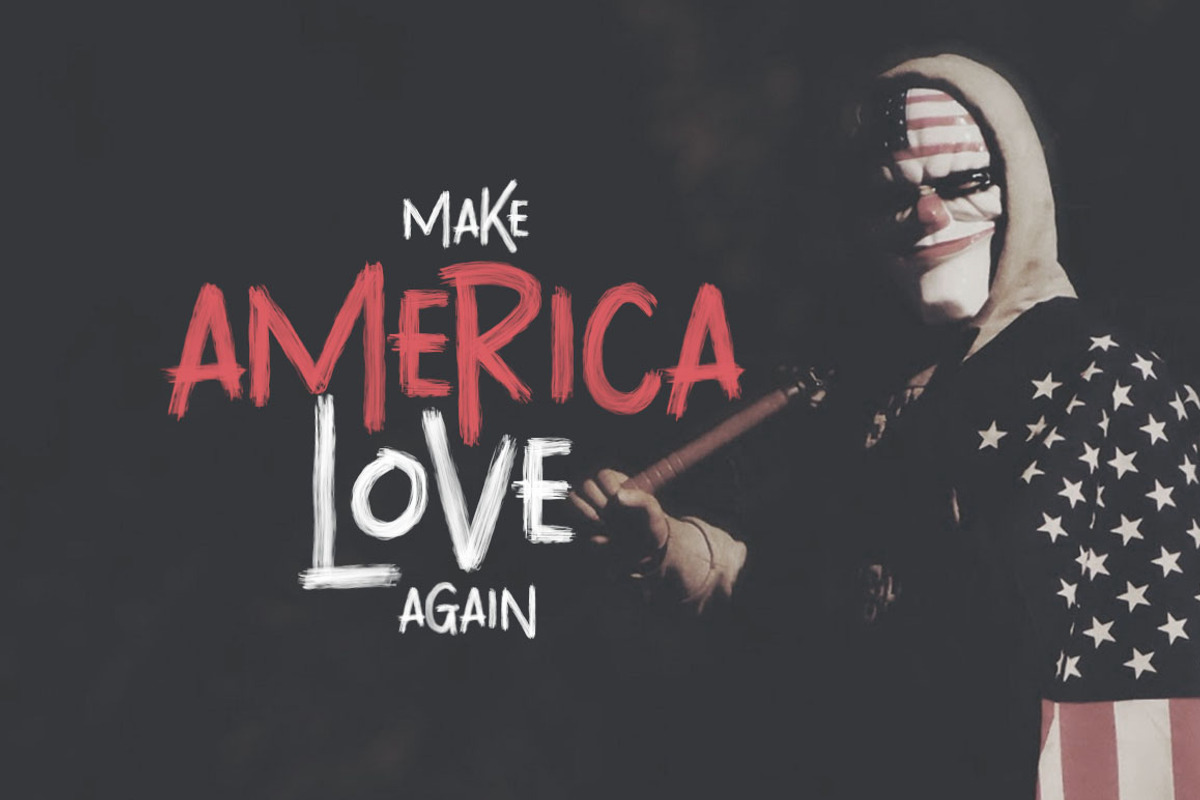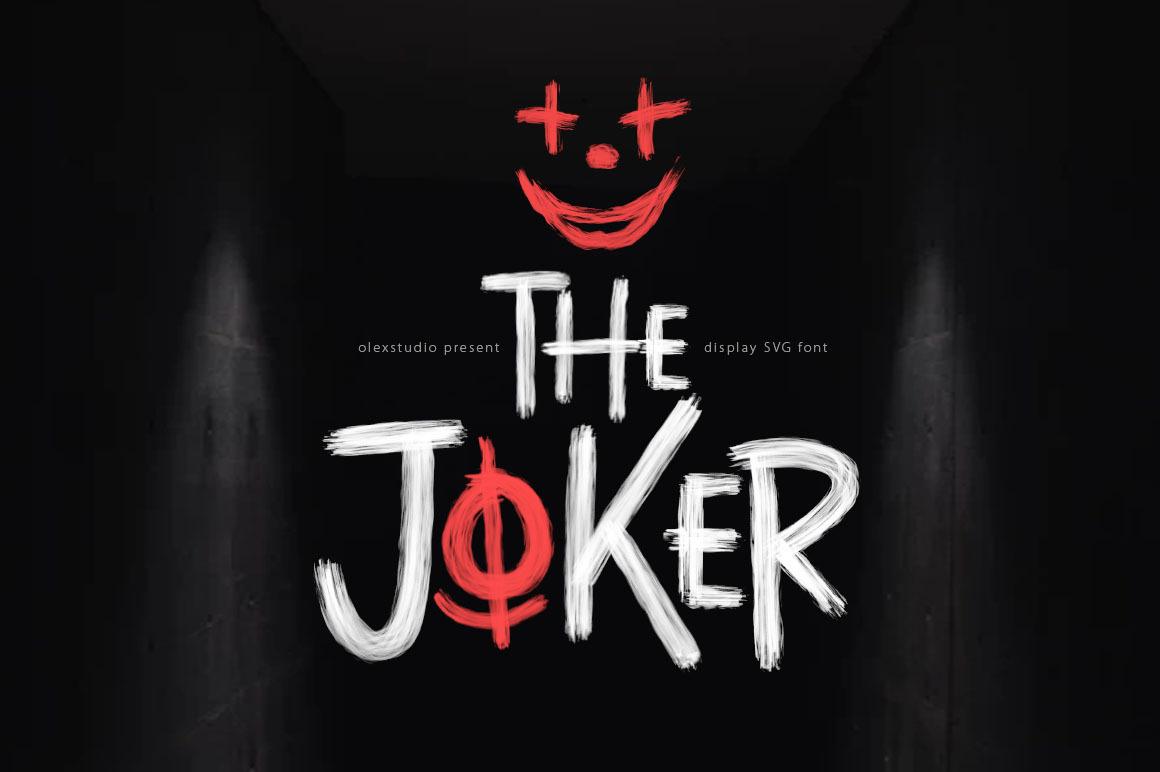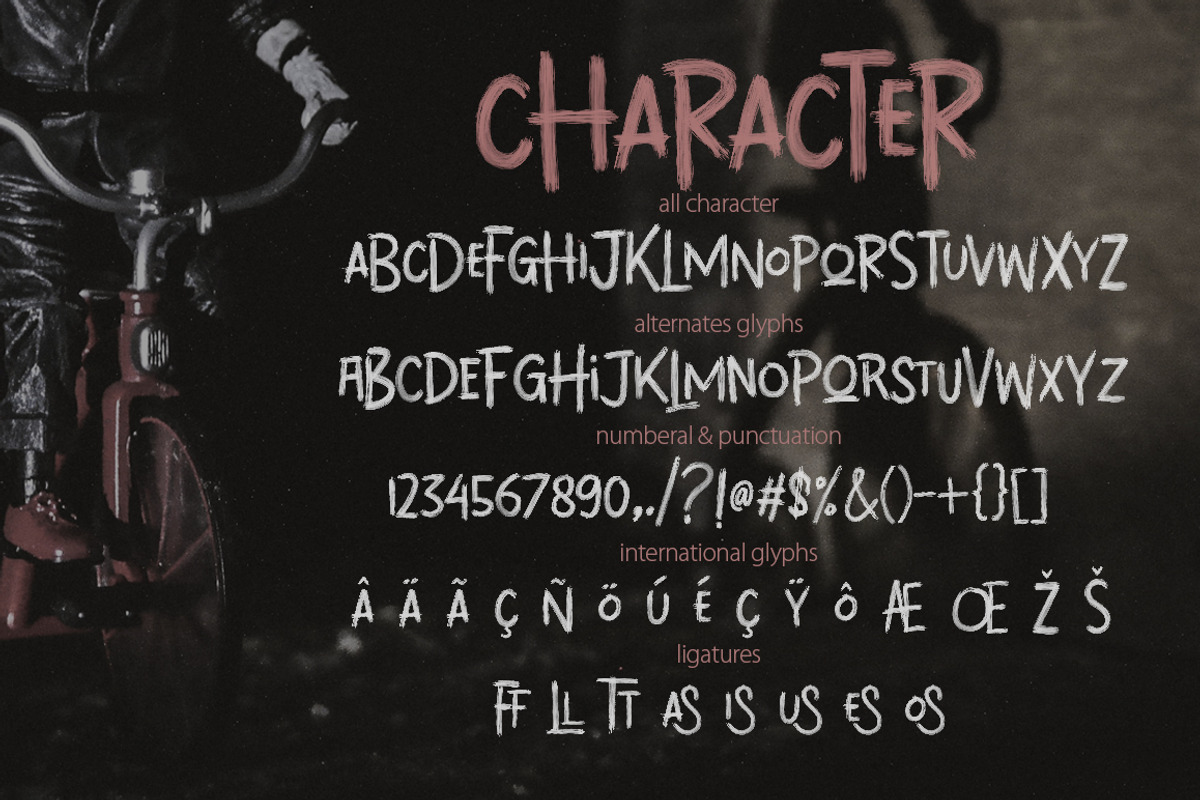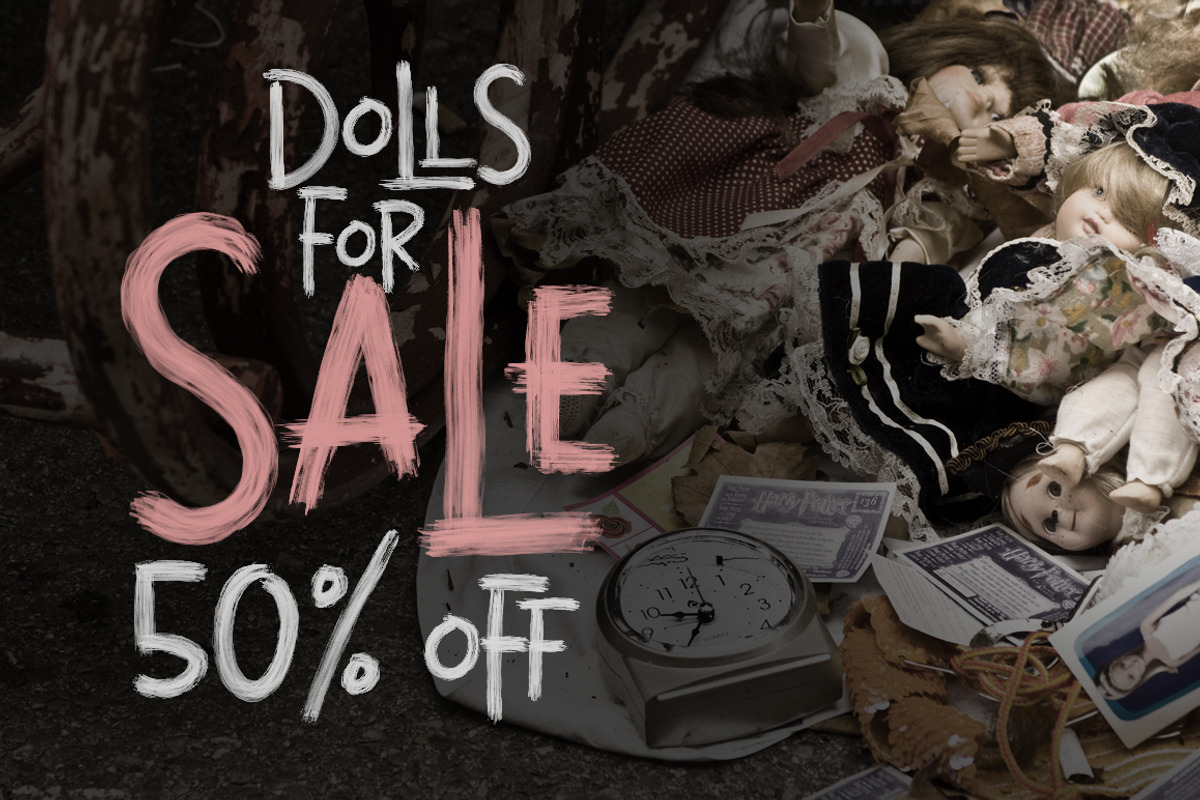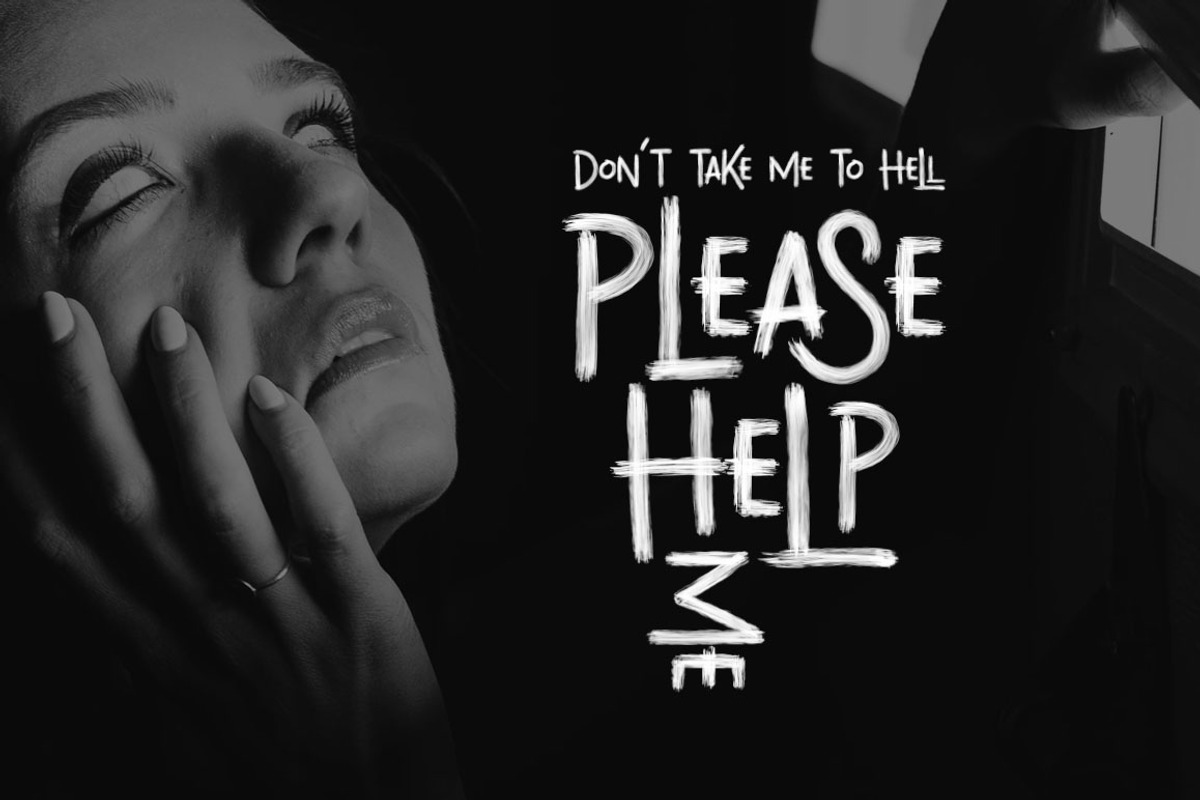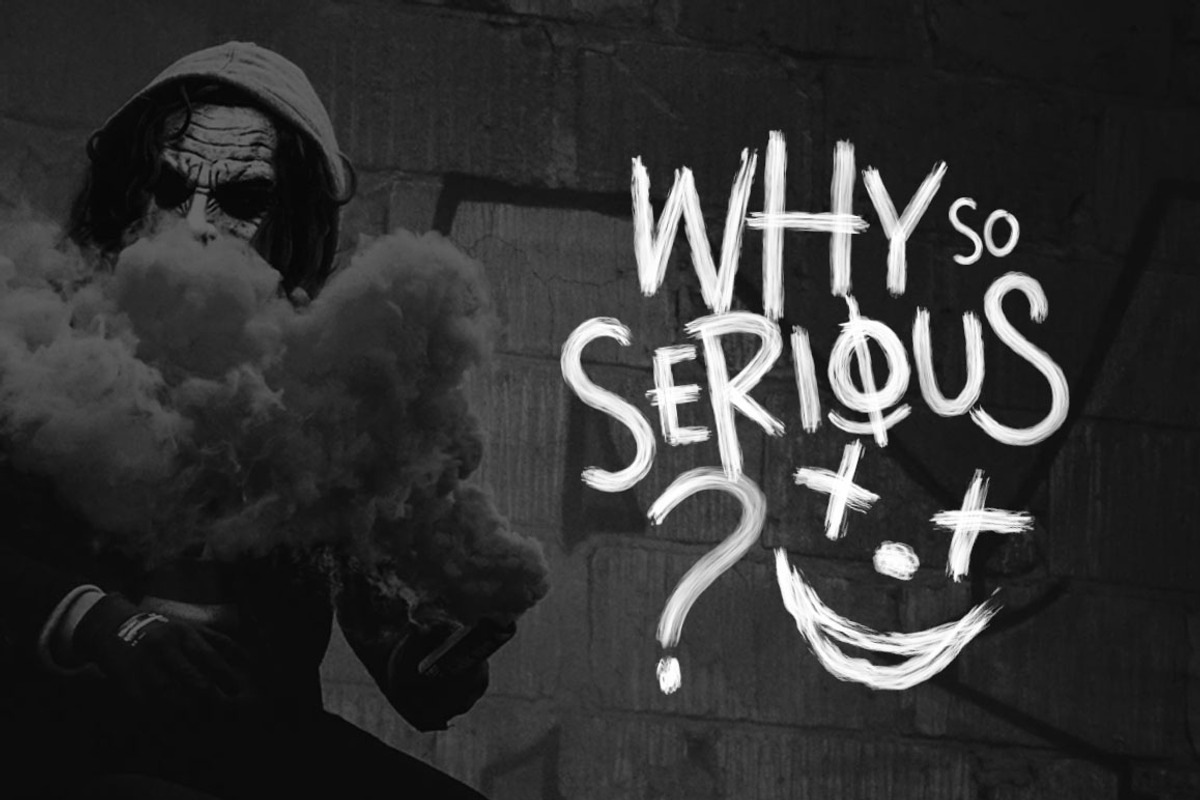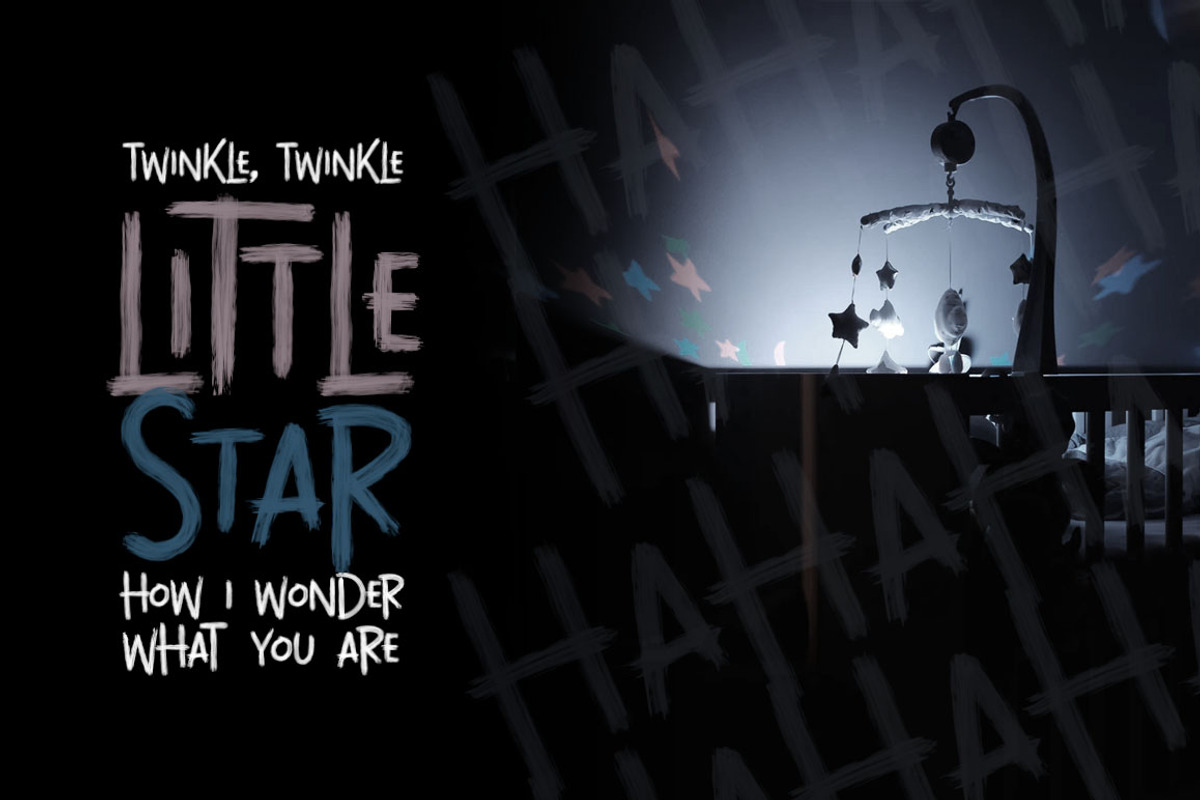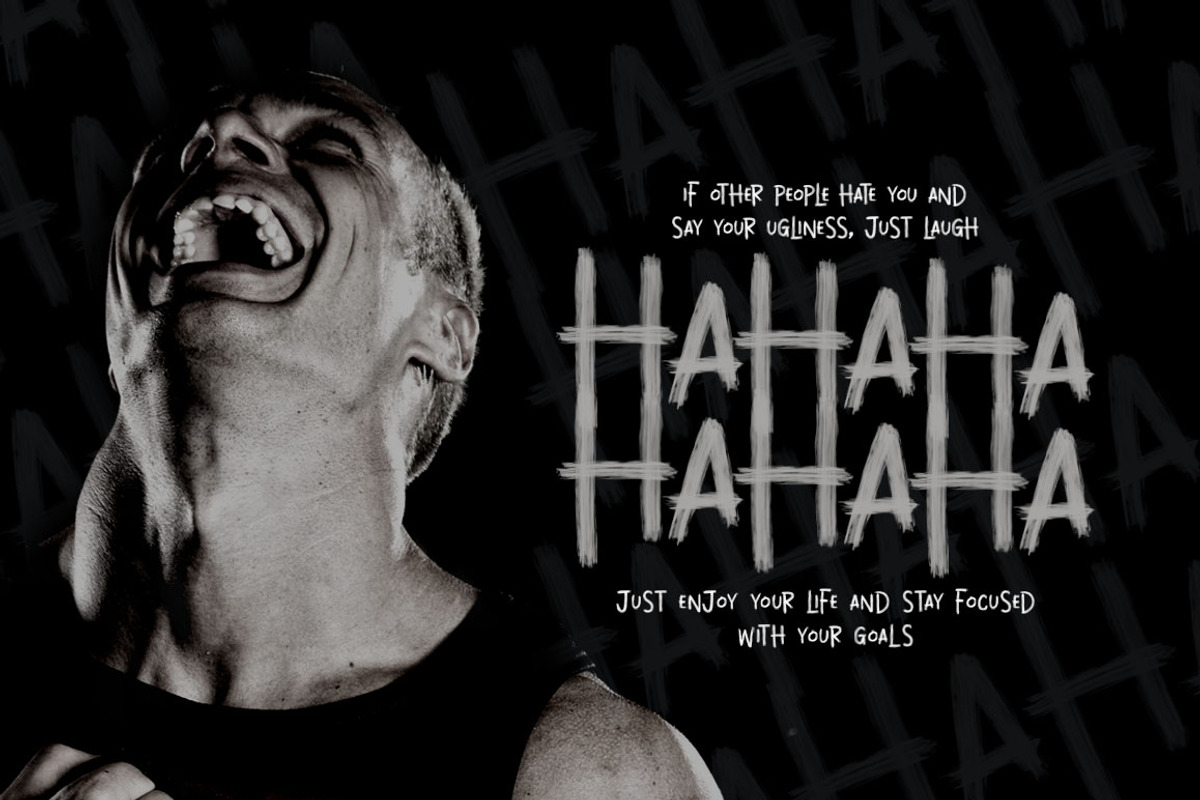
THE JOKER - SVG font
THE JOKER - SVG font This Font will look gorgeous on all your designs, invitation, book, branding materials, logo's, t-shirt, poster and all project design other.
THE JOKER - SVG font contains standard characters, uppercase and lowercase (all character caps) alternates, numbers, punctuation, ligatures and international glyphs. You will receive OTF, TTF SVG Format.